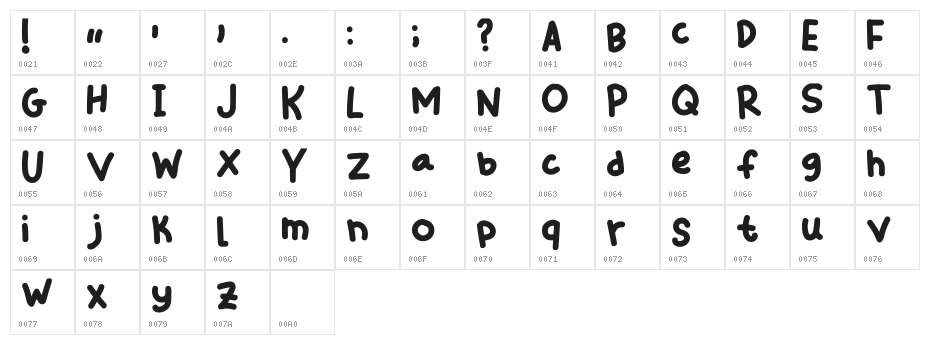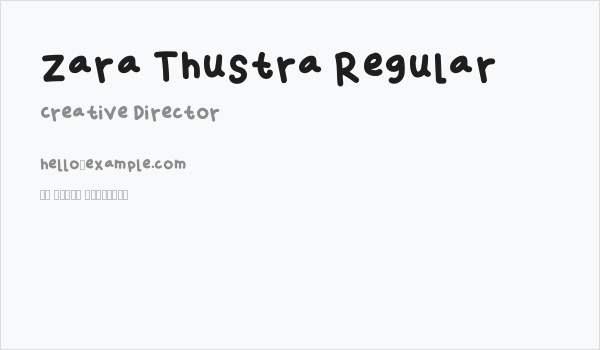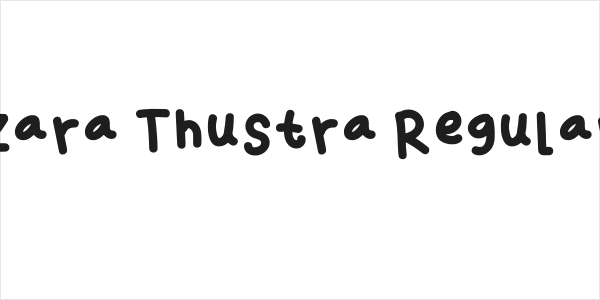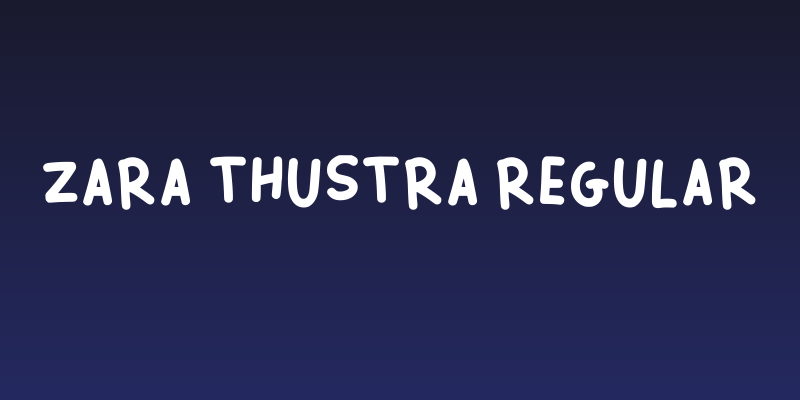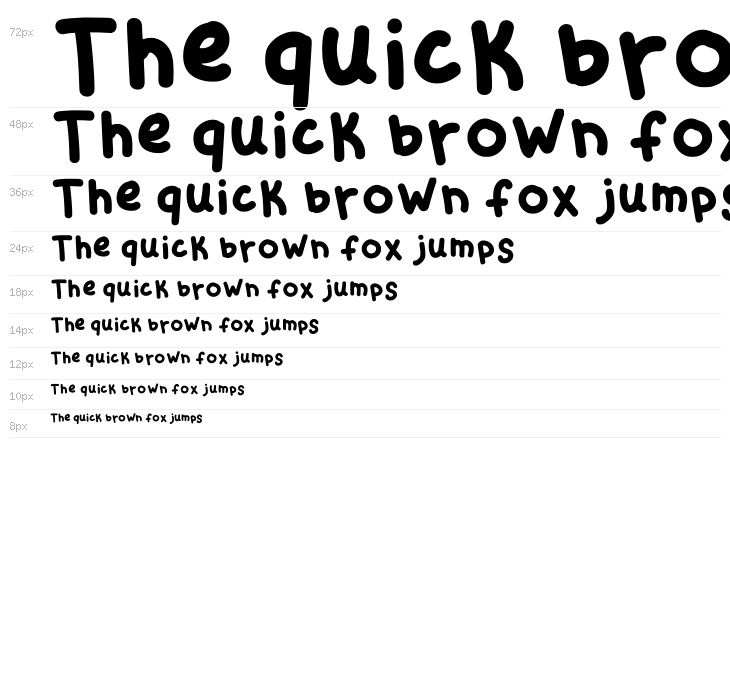
Zara Thustra Regular Font
Zara Thustra Regular Description
This font features a playful and bold handwritten style, characterized by its rounded and slightly irregular shapes. The letters have a casual and friendly appearance, with a consistent stroke width that gives it a cohesive look. The uppercase and lowercase letters maintain a uniform style, while the numbers and special characters complement the overall design. The font's informal nature makes it suitable for projects that require a touch of whimsy and approachability.
| Use Case | Headlines, Logos, Casual Text |
| Proposed Projects | Ideal for children's books, greeting cards, playful branding, and casual invitations. |